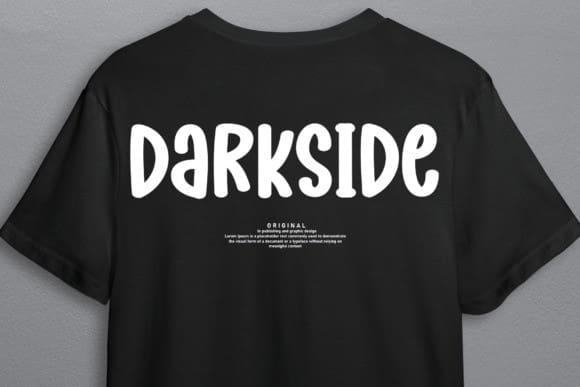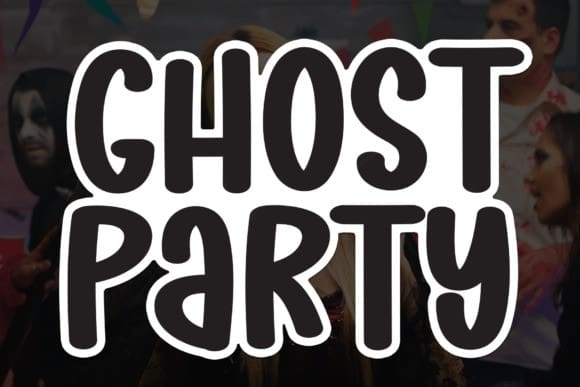
Ghost Party Font
Ghost Party is a lovely and timeless handwritten font. It is the best choice for creating eye catching logos, branding and quotes. Every letter has a unique and beautiful touch, which will make your design come alive!